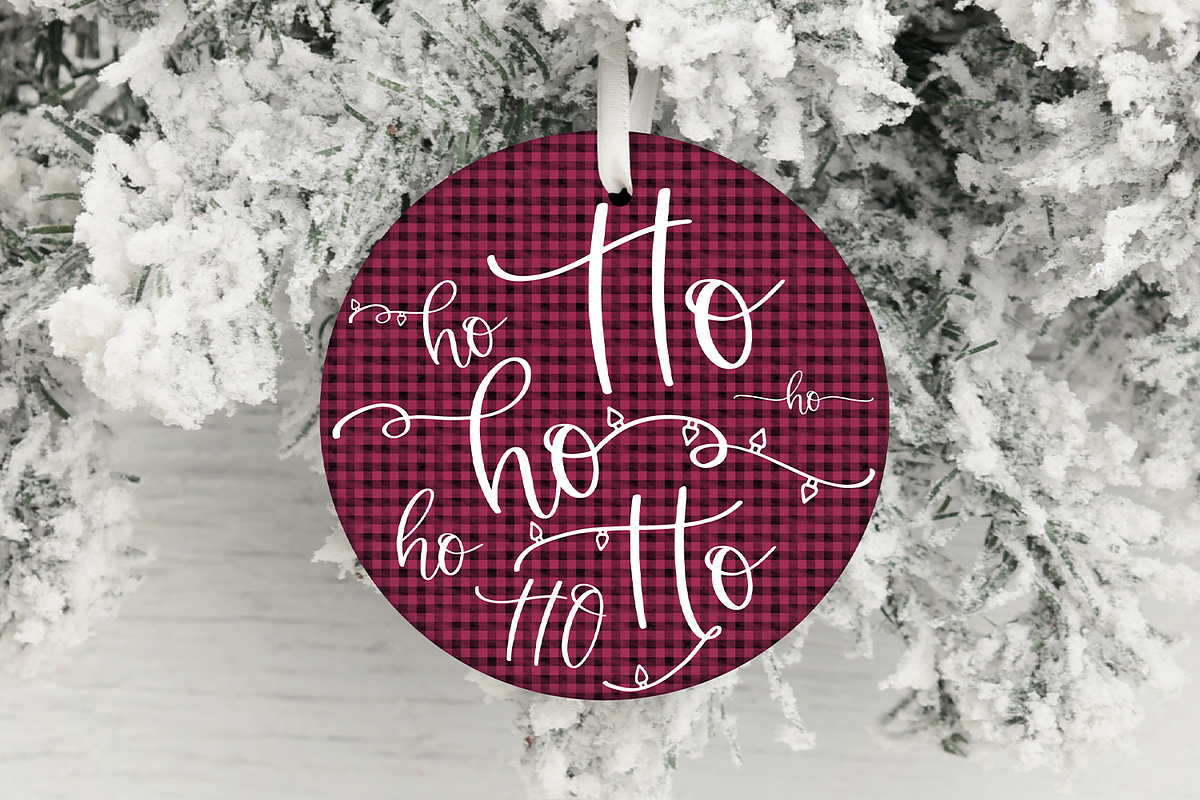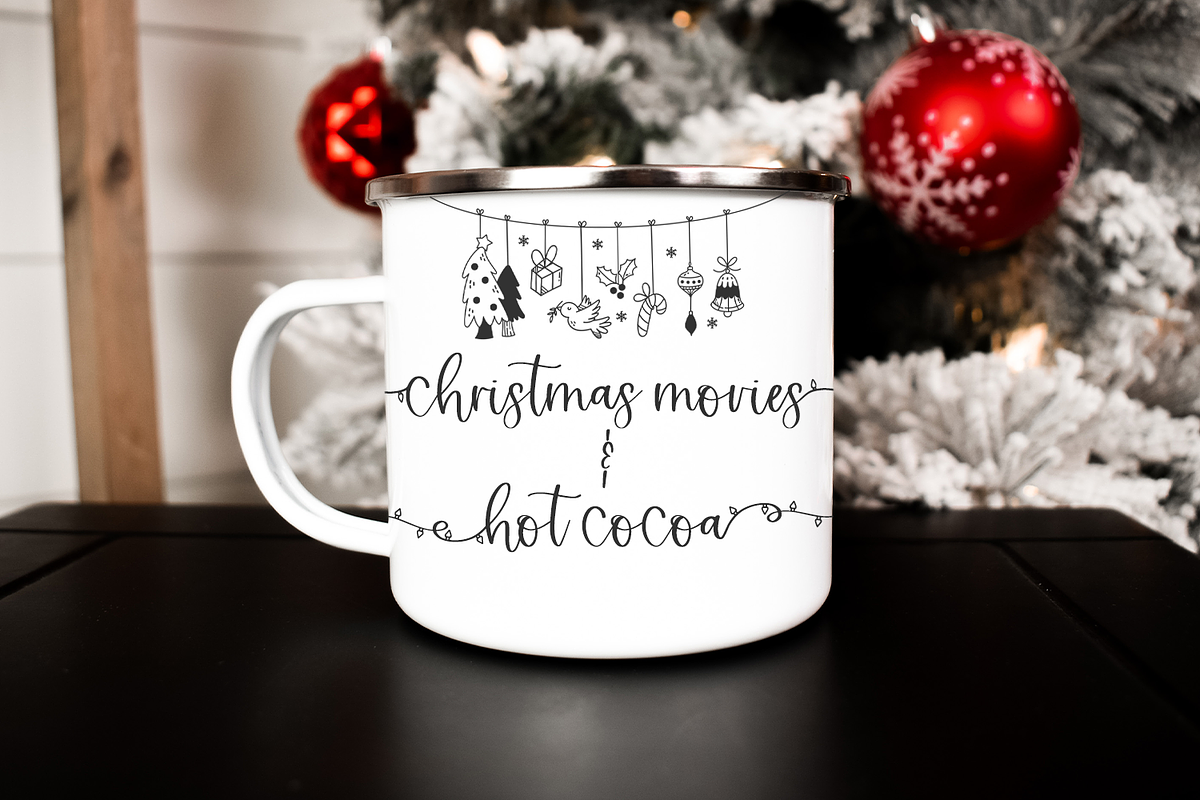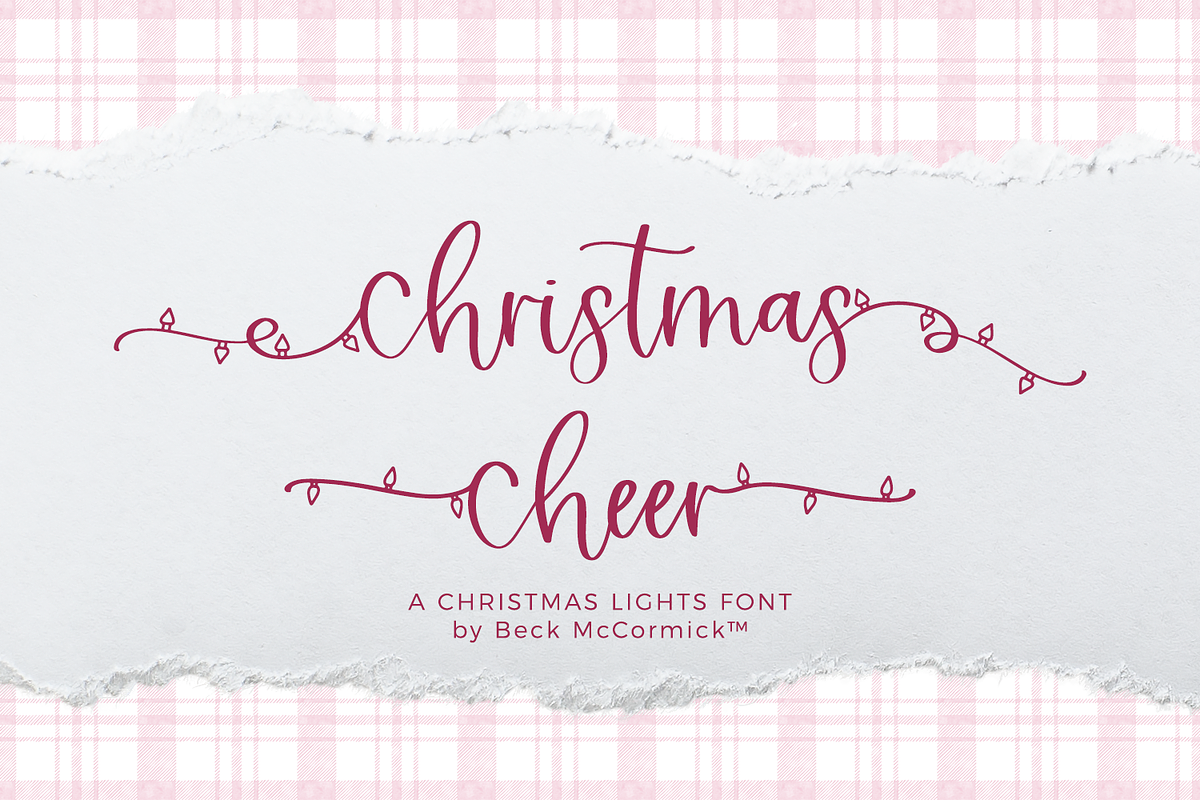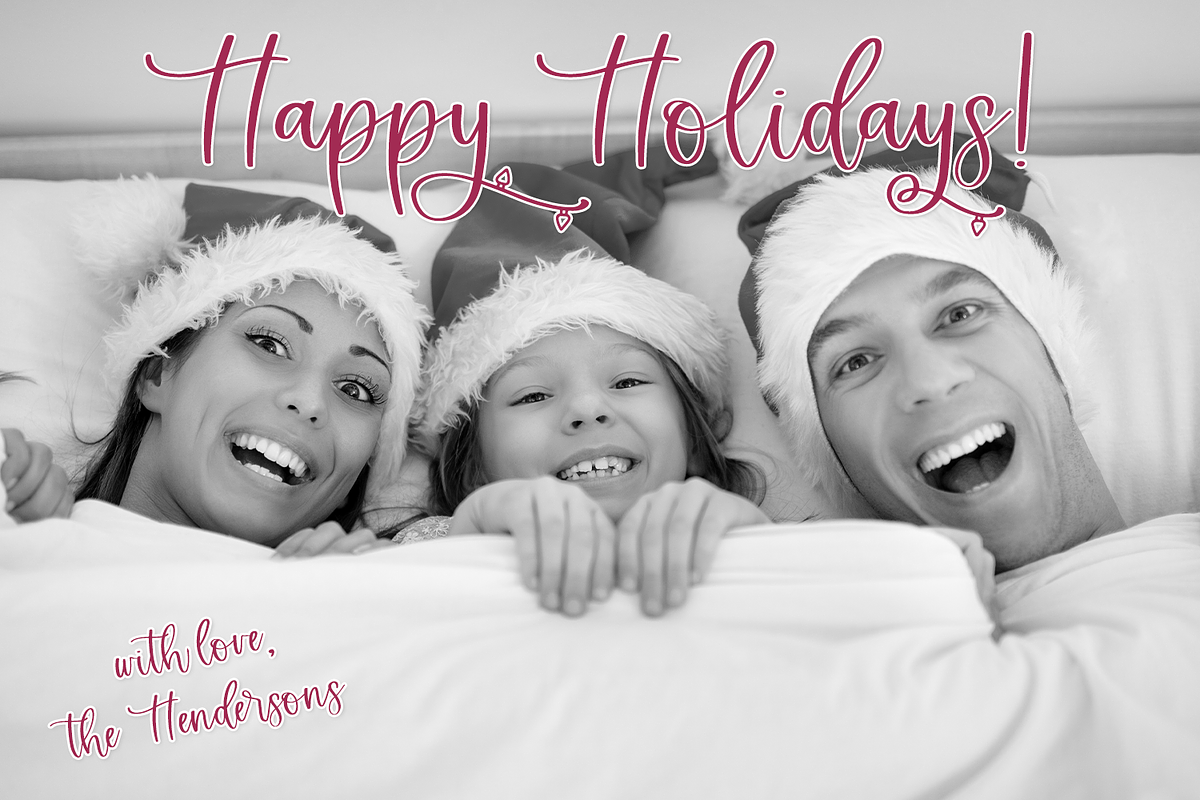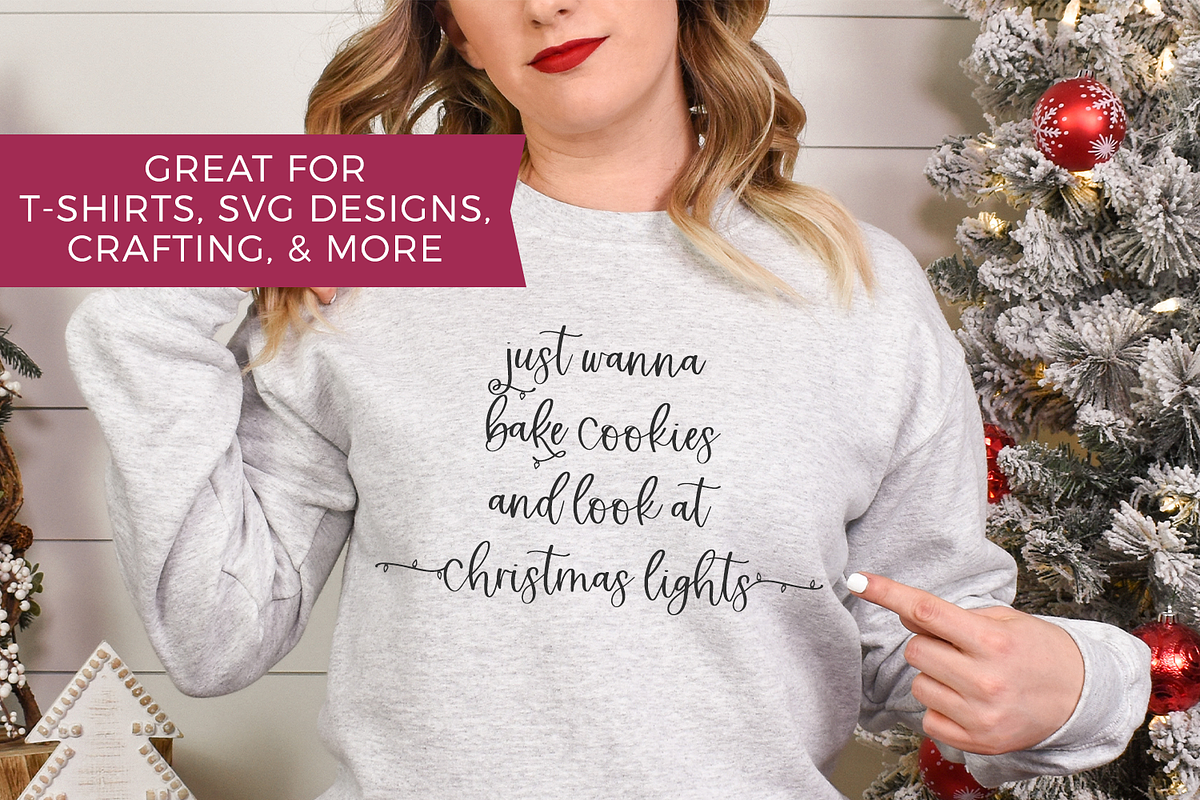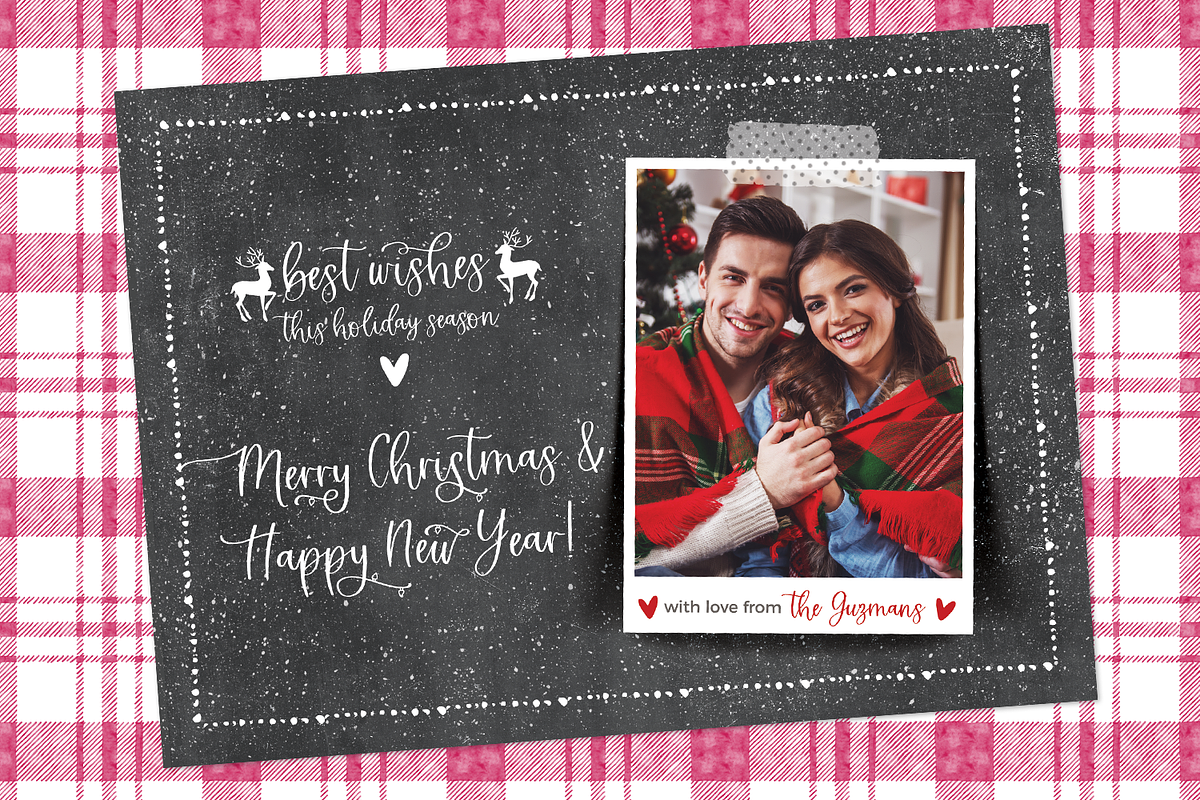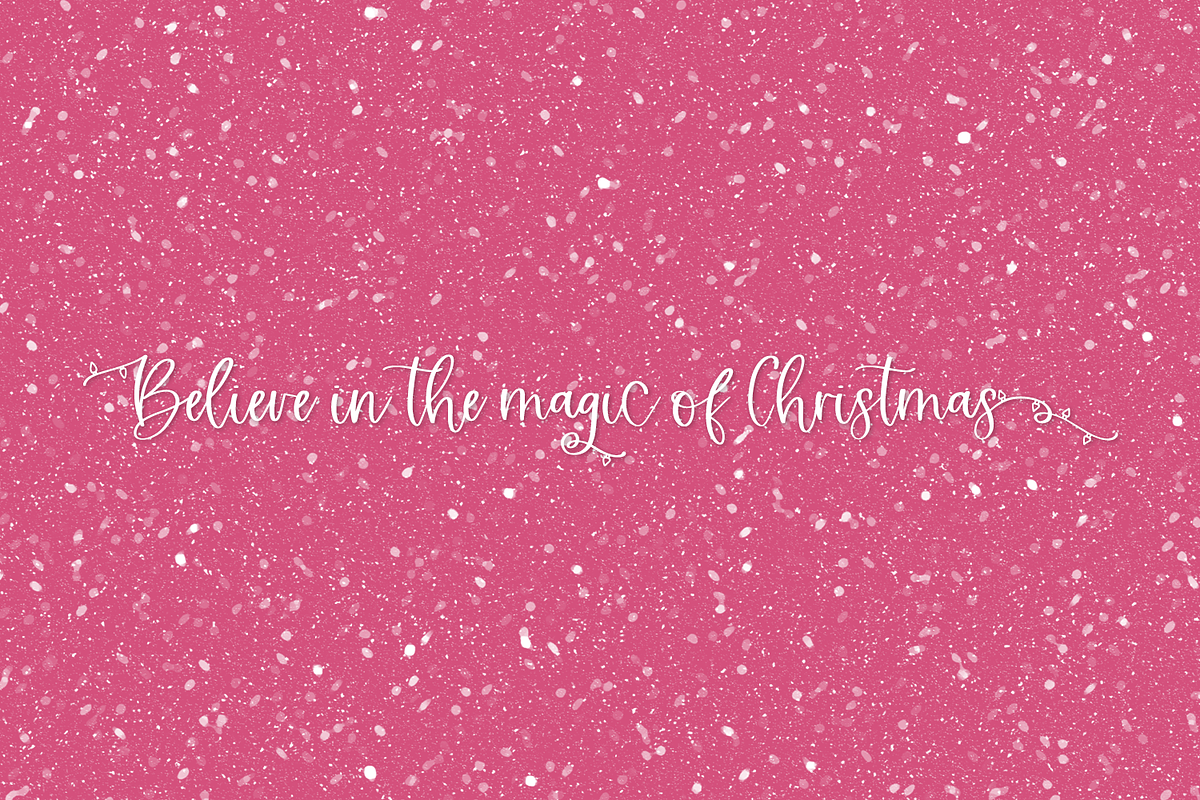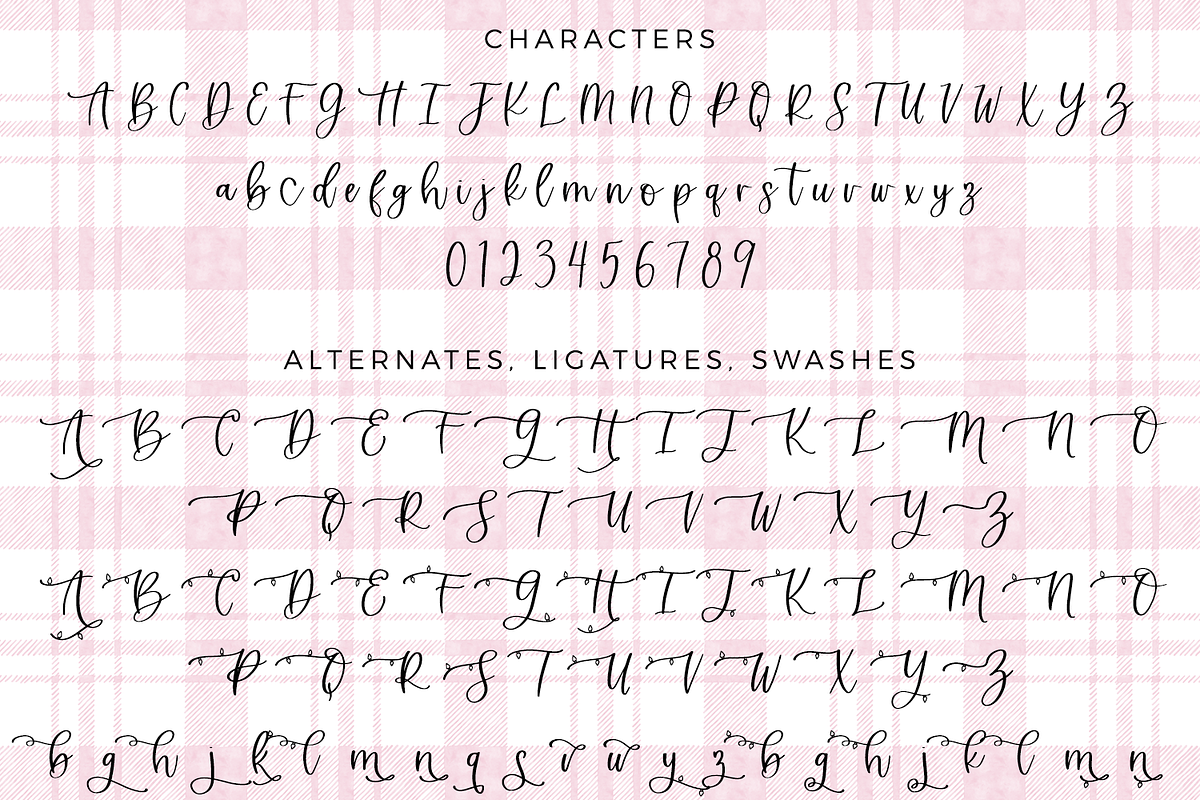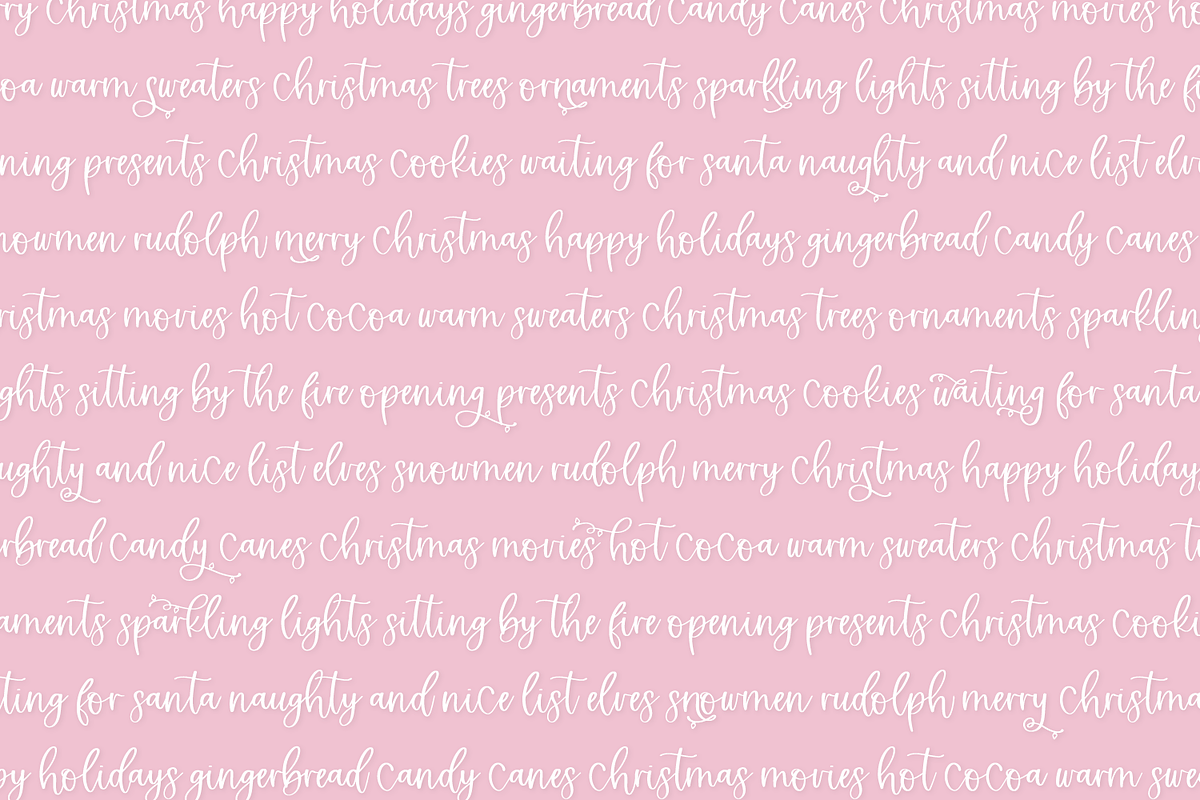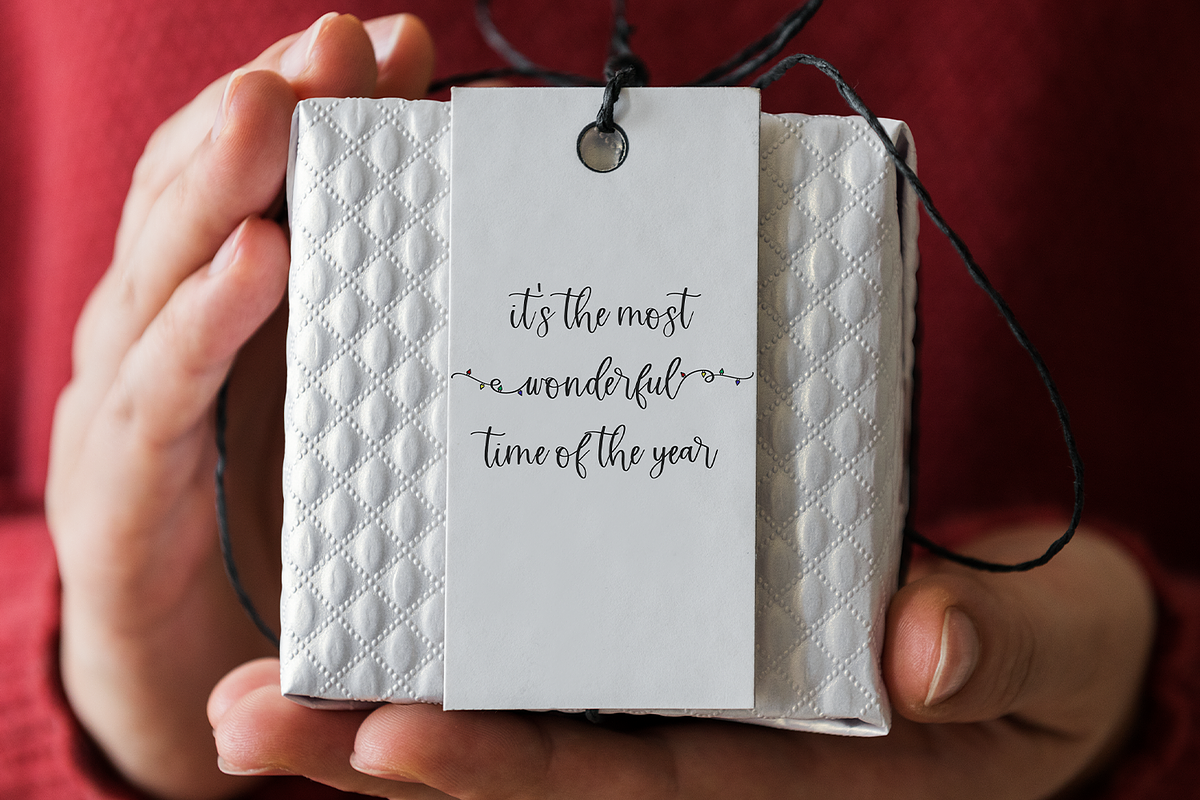
Christmas Cheer Script
Very merry, indeed! Introducing Christmas Cheer, a modern calligraphy script font packed full of Christmas light swashes & flourishes.
Christmas Cheer Script is best for:
- Christmas cards
- gift tags & personalized items
- SVG designs related to the holiday season
- creating crafty projects with your Cricut or Silhouette machine
- holiday mug design & other apparel
- Christmas ornament
- quote graphics for social media
All flourished characters and swashes also include a version without Christmas lights, making it a versatile option for non-holiday applications! Christmas Cheer can also be used for:
- logos + branding
- website design + website accents - think travel blogs, fashion blogs, & more
- clean print design, like magazines + flyers
- header elements that need handwritten touch
- quote graphics for social media
Christmas Cheer Script includes:
- full upper + lowercase characters
- numbers + punctuation
- Western European Language Support
- 437 alternate characters, including 52 A-Z swash options, 312 a-z swash options, and a selection of singular flourished characters
- 15 ligatures - ar, db, dh, dk, dl, er, fb, fh, fk fl, ft, ir, or, tt, ur
- PUA-encoding